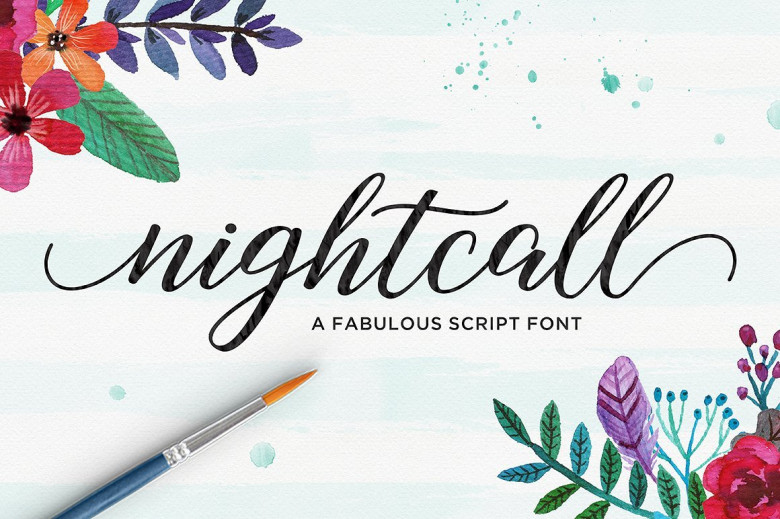
Nightcall Script Font
Introducing Nightcall Font. It is designed by Picatype , this is a premium font, are sold on creativemarket, but it was great, it is free today for download. Nightcall Script is modern calligraphy design, including Regular, Upright and Bold Script. This font is casual and pretty with swashes. Can used for various purposes. such as signature, logo, product packaging, wedding invitations, branding, headlines, signage, labels, book covers, posters, quotes and more.